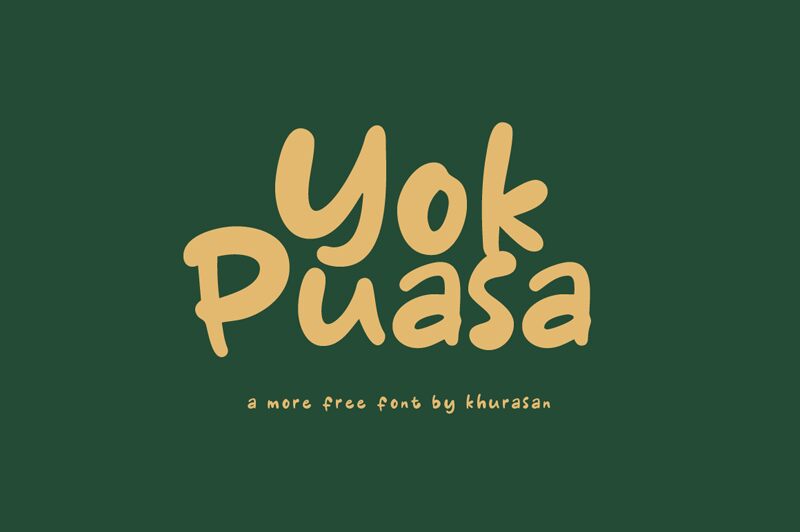
Yok Puasa
Yok Puasa, the vibrant and playful display font by Khurasan, is the perfect choice for projects that require a touch of whimsy. With its bold weight and cartoon style, this font is ideal for everything from children's book titles to eye-catching logos. Its unique curves and angles make it stand out from other fonts, while its legibility ensures that your message won't be lost in translation. Whether you're designing a poster or creating a new brand identity, Yok Puasa is sure to add a fun and creative edge to your project.